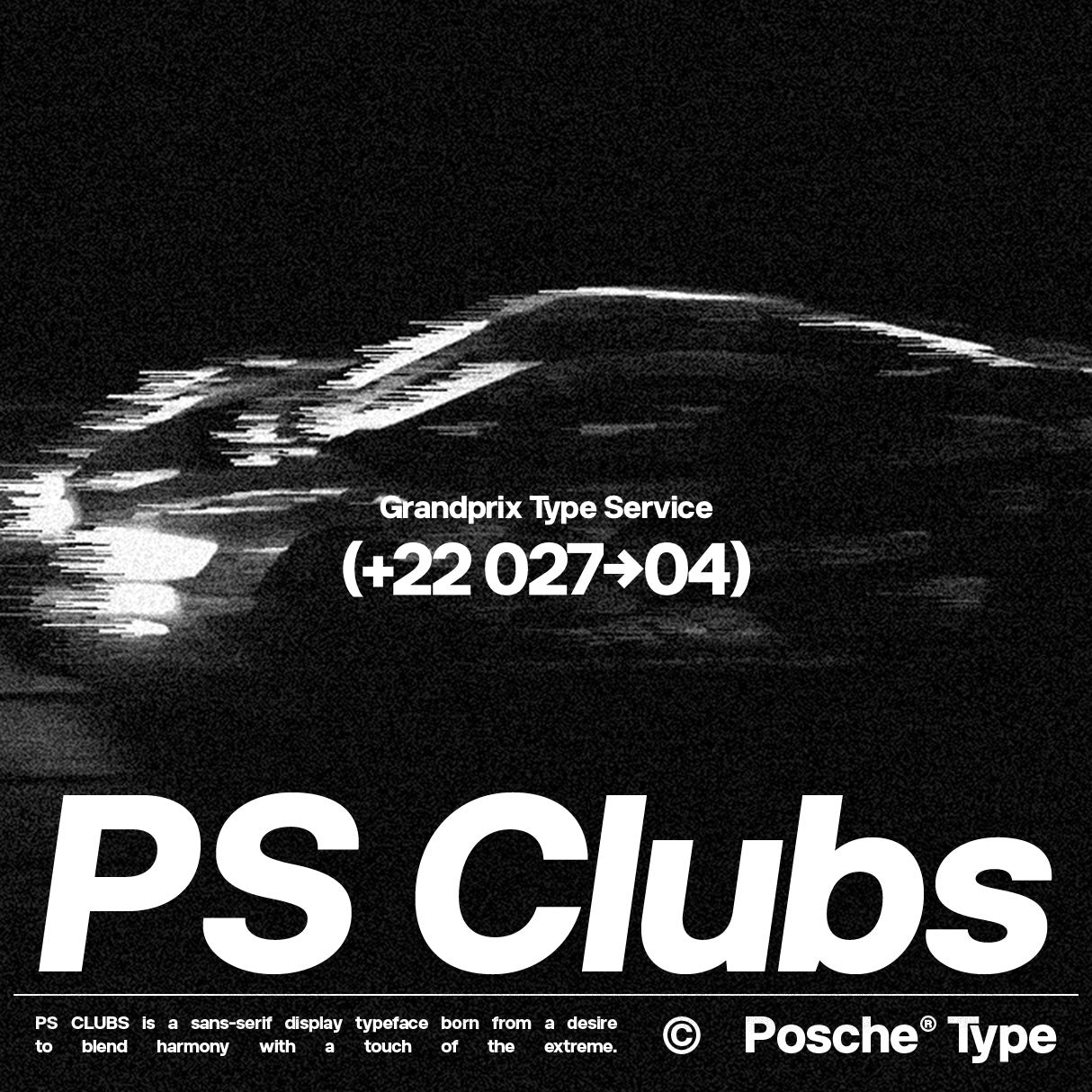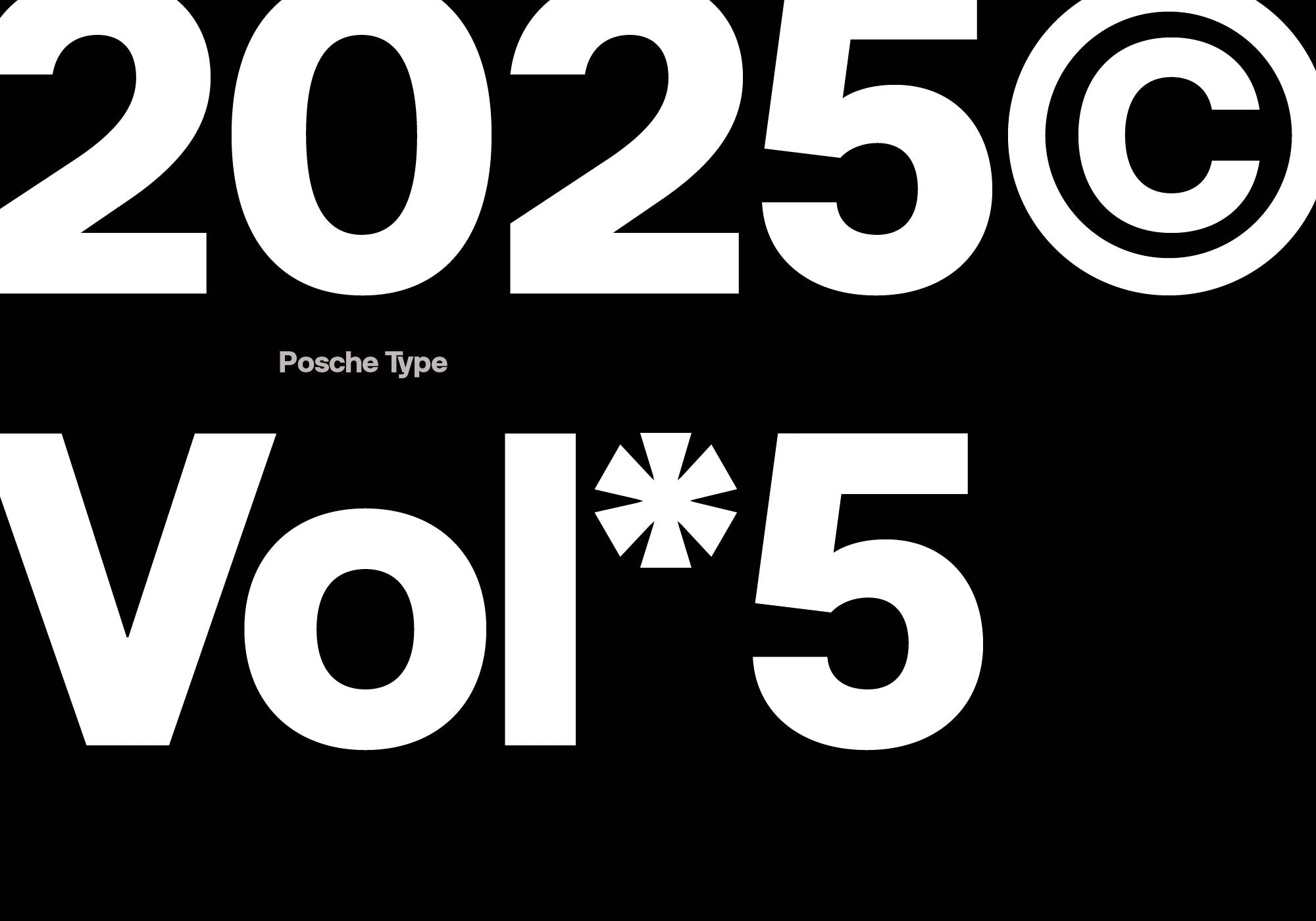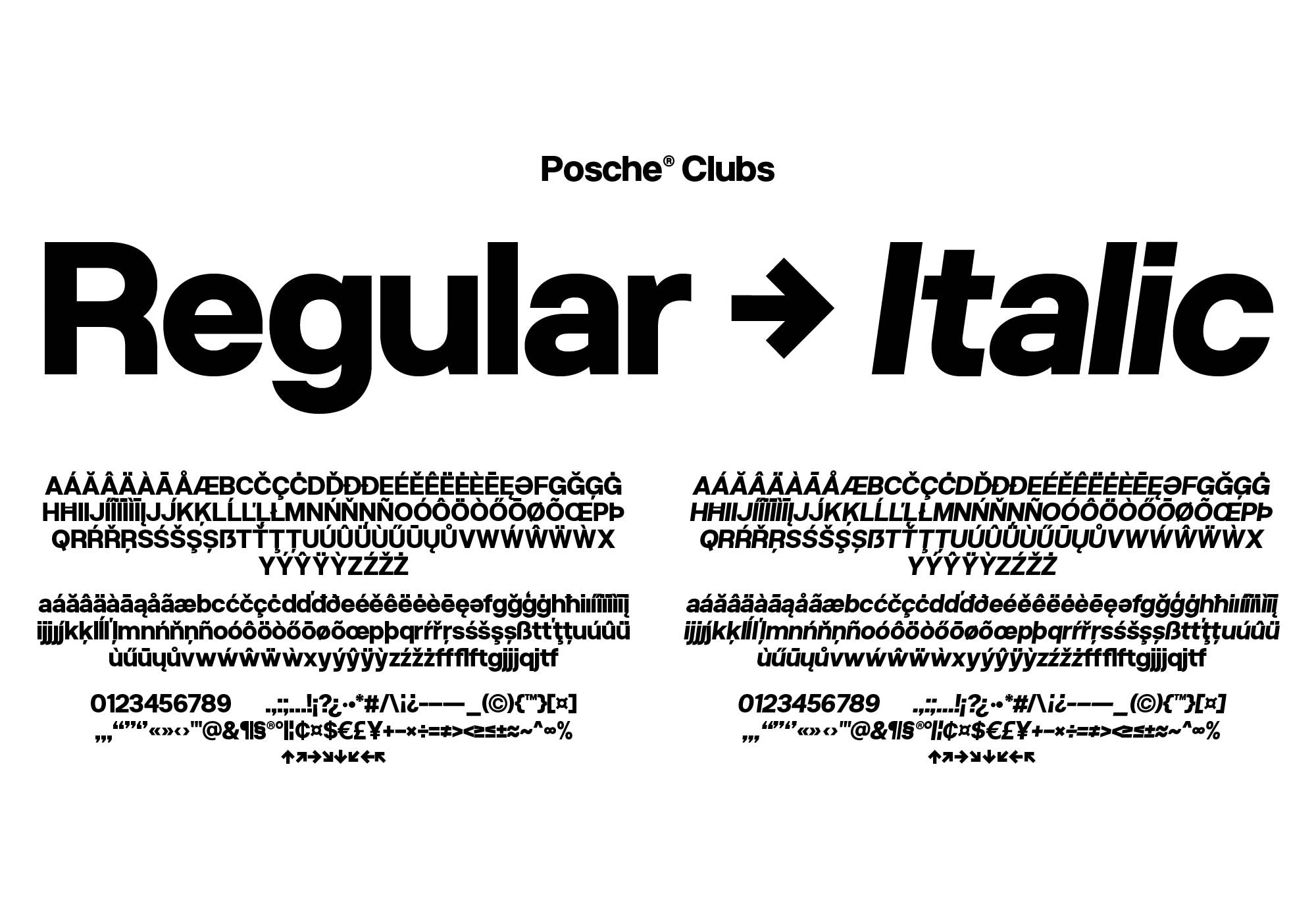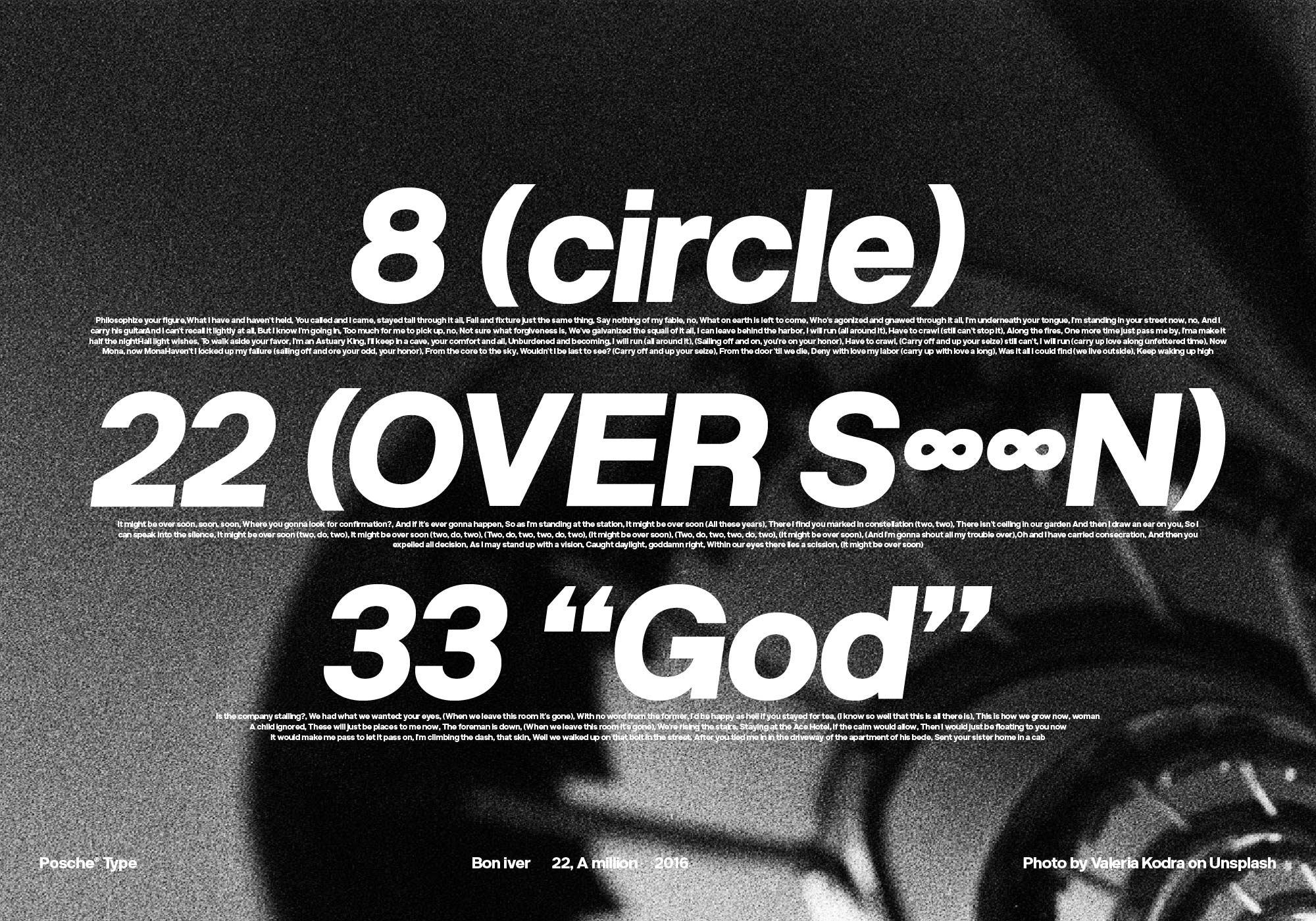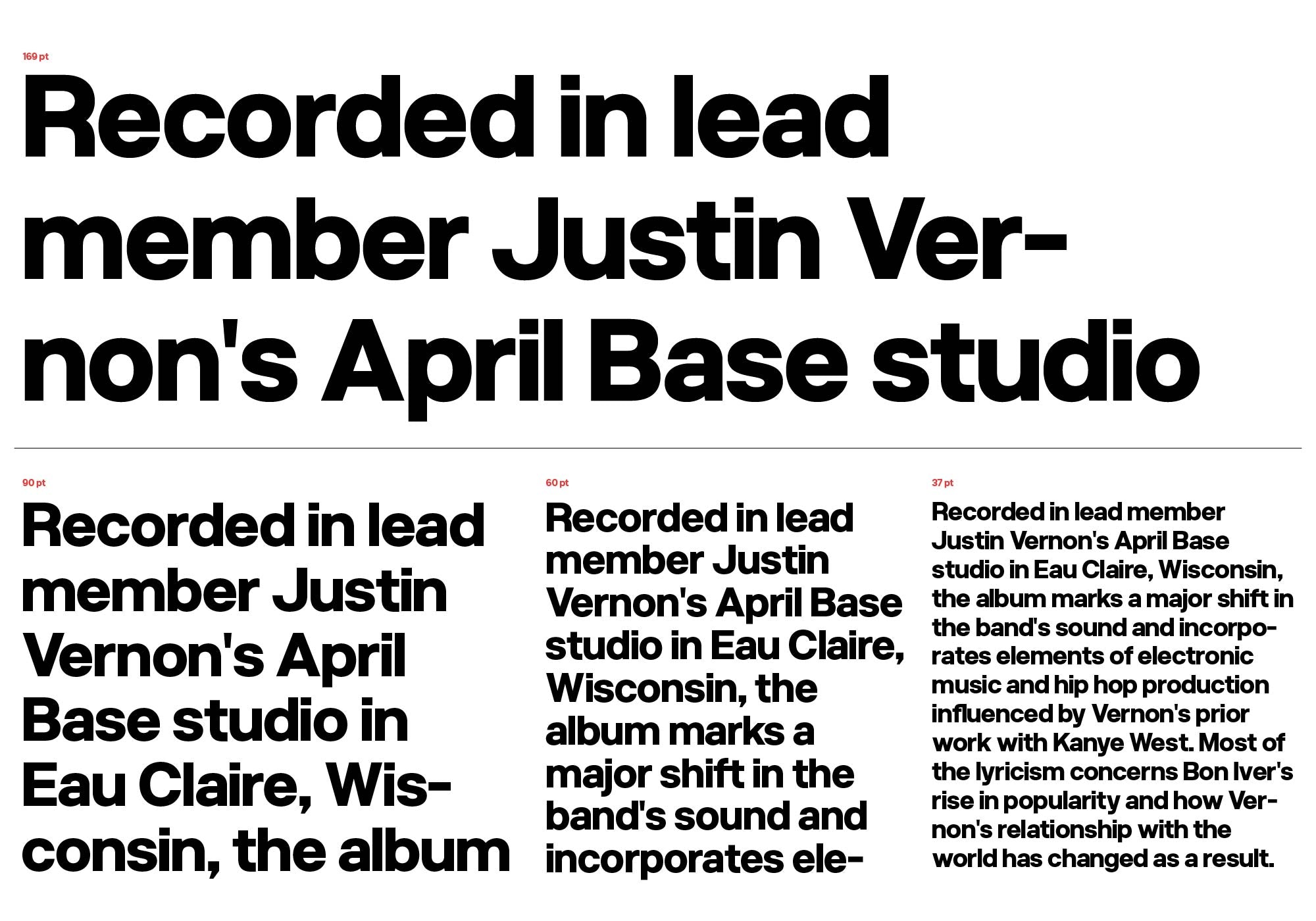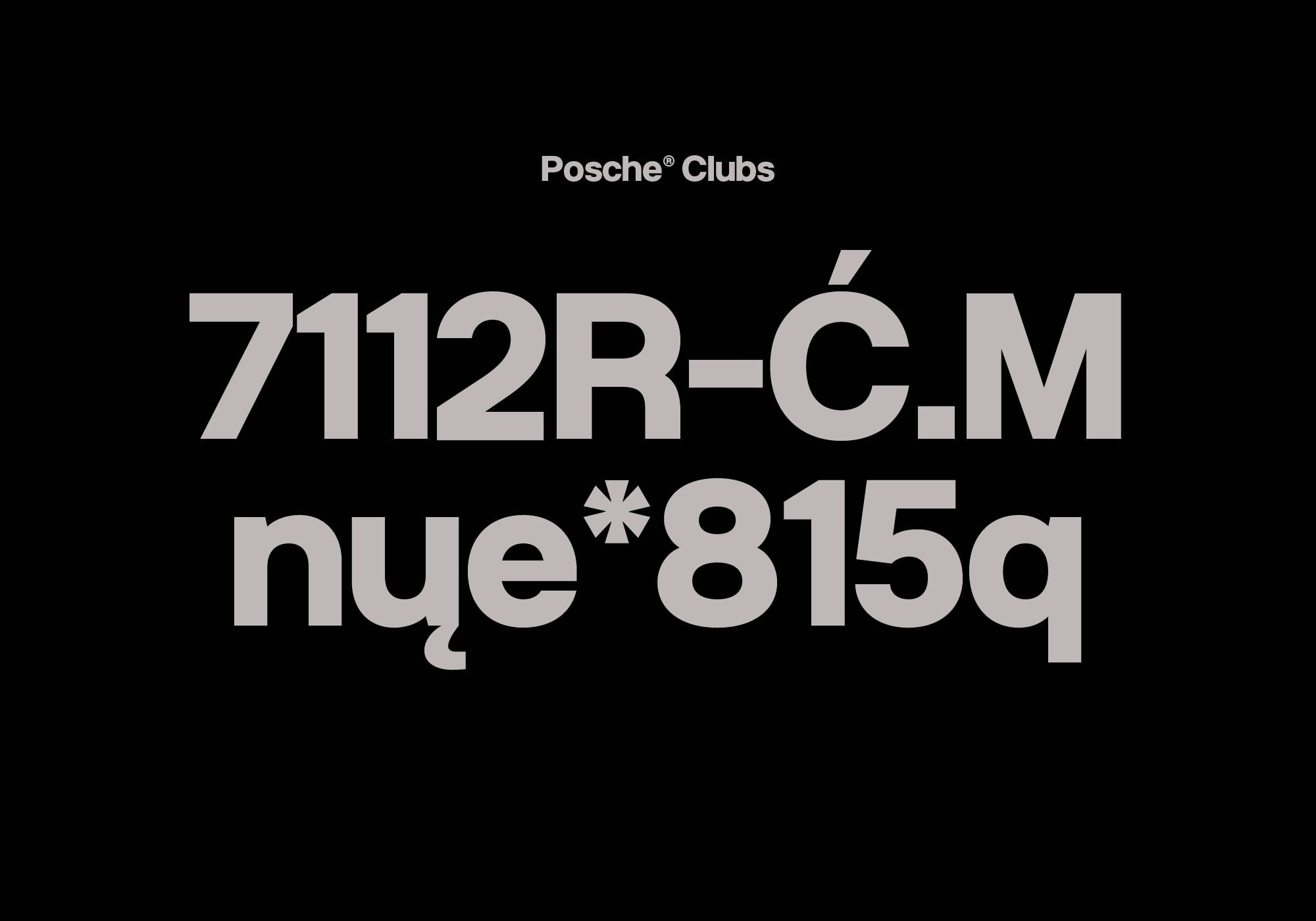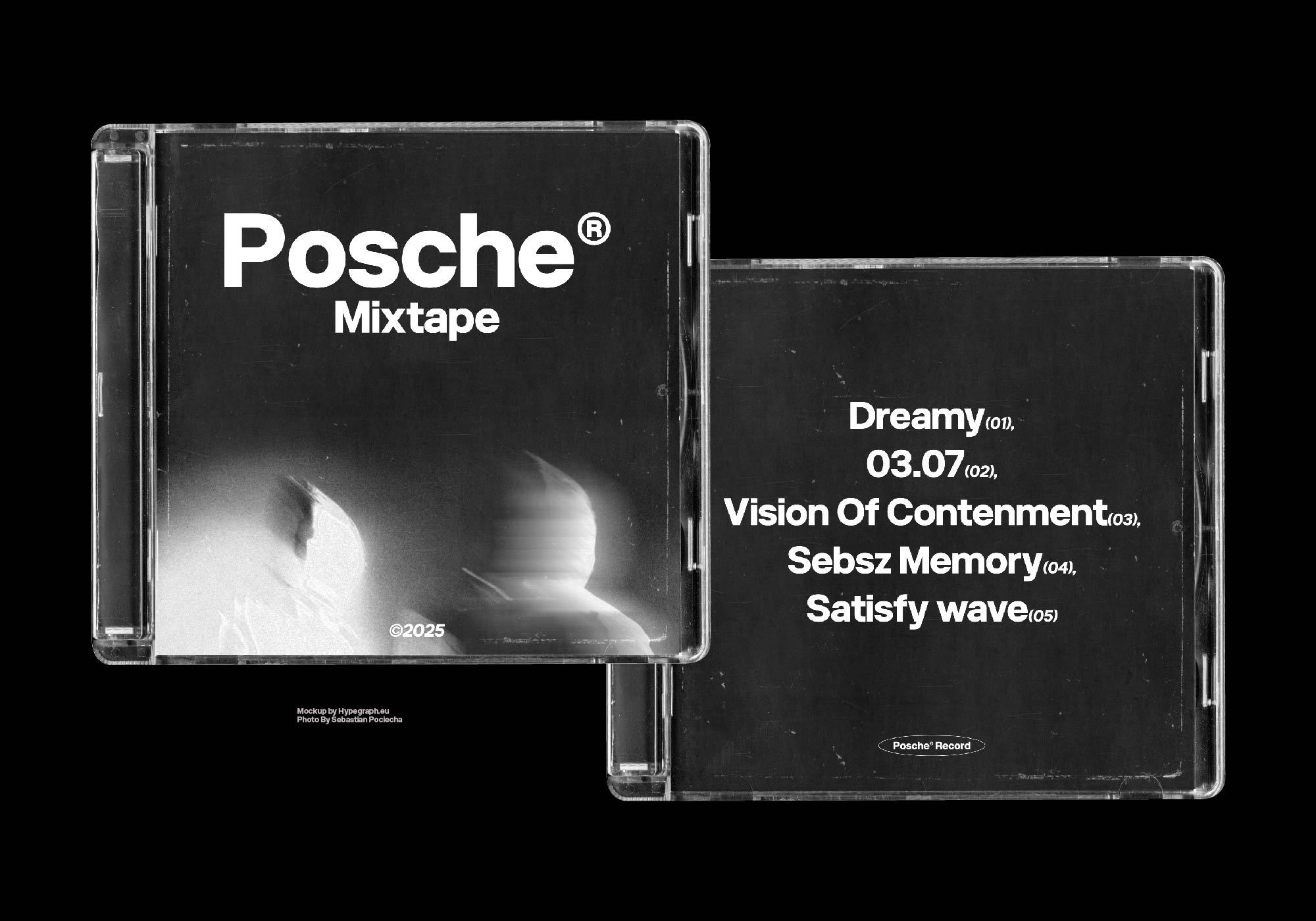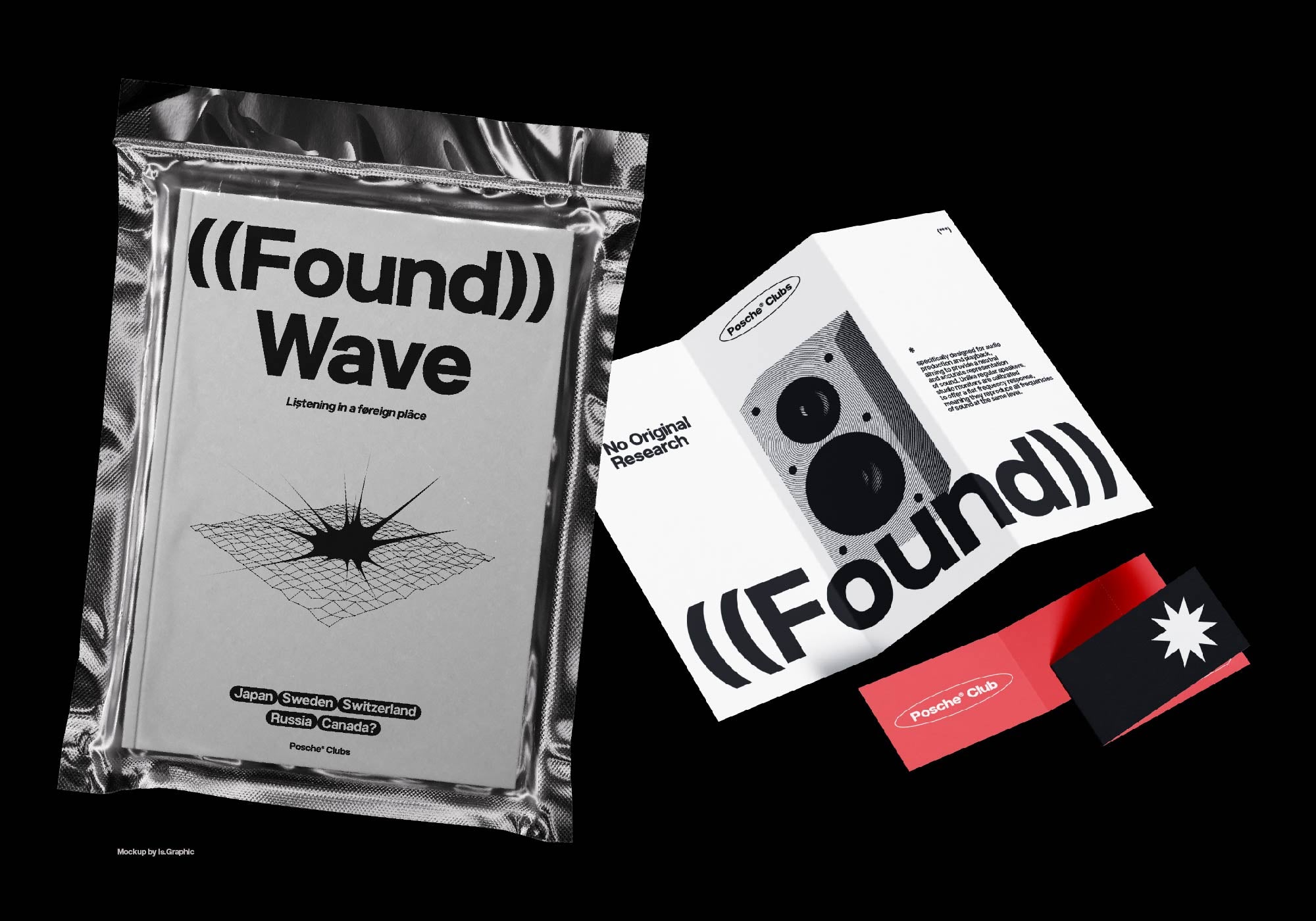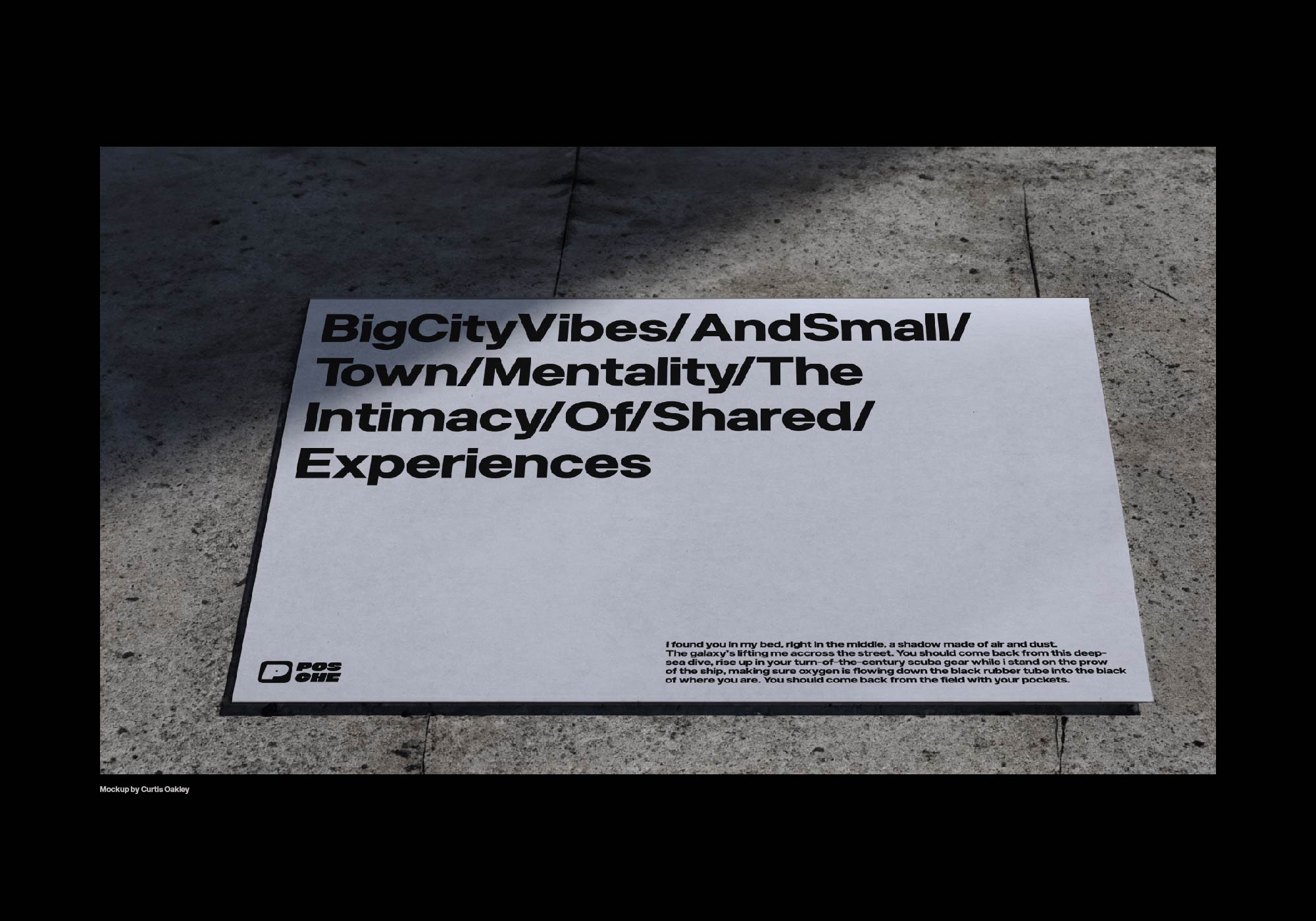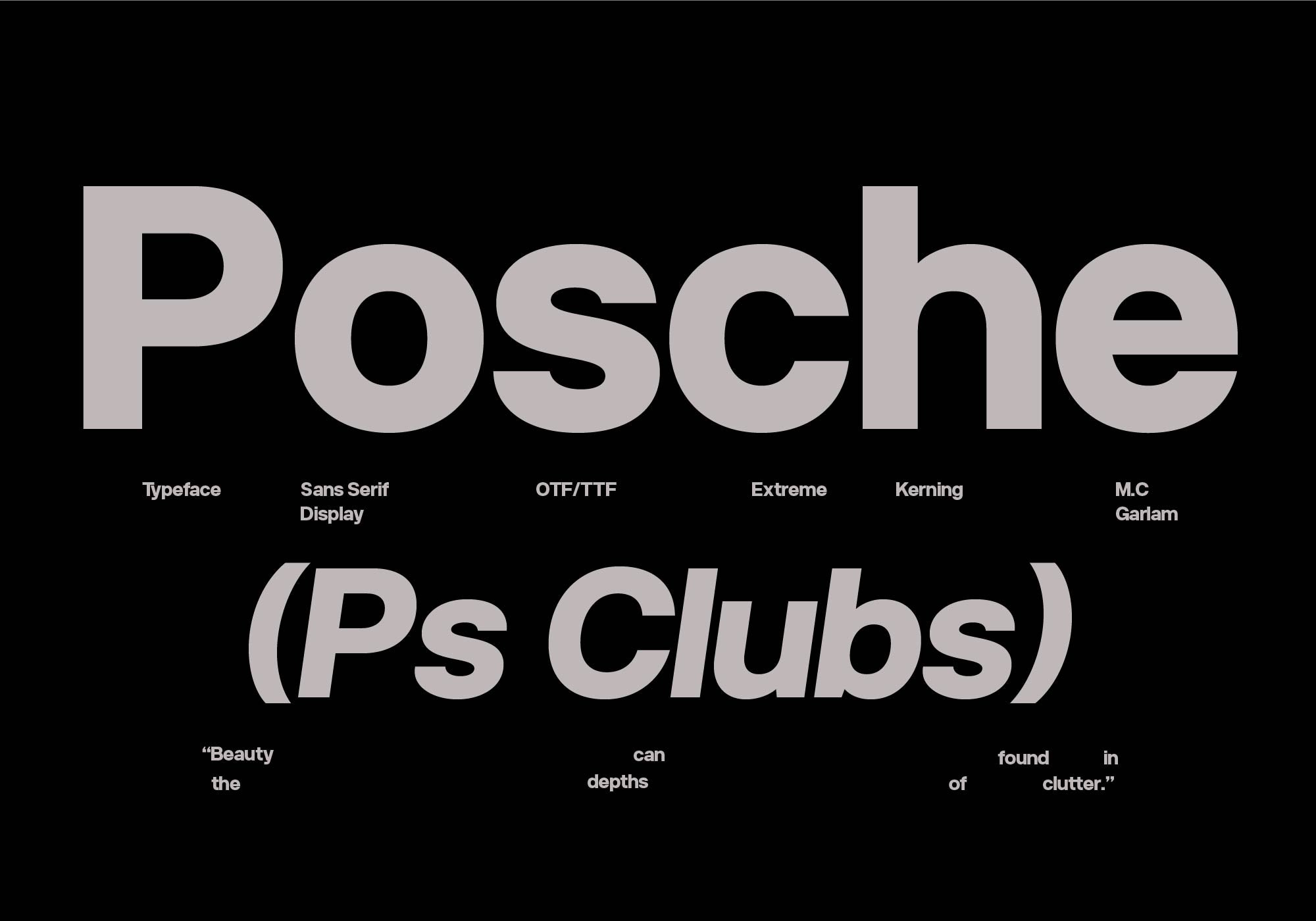
PS Clubs | Display Typeface
PS Clubs | Display Typeface is a sans-serif display font available in Regular and Italic Low Contrast styles, featuring distinctive extreme kerning for a unique appearance. It offers versatility for various design applications while maintaining clear readability, making it suitable for both headlines and body text.
Ideal for contemporary graphic design and branding projects. Perfect for posters, flyers, social media content, and editorial layouts, ensuring standout readability with a unique flair.